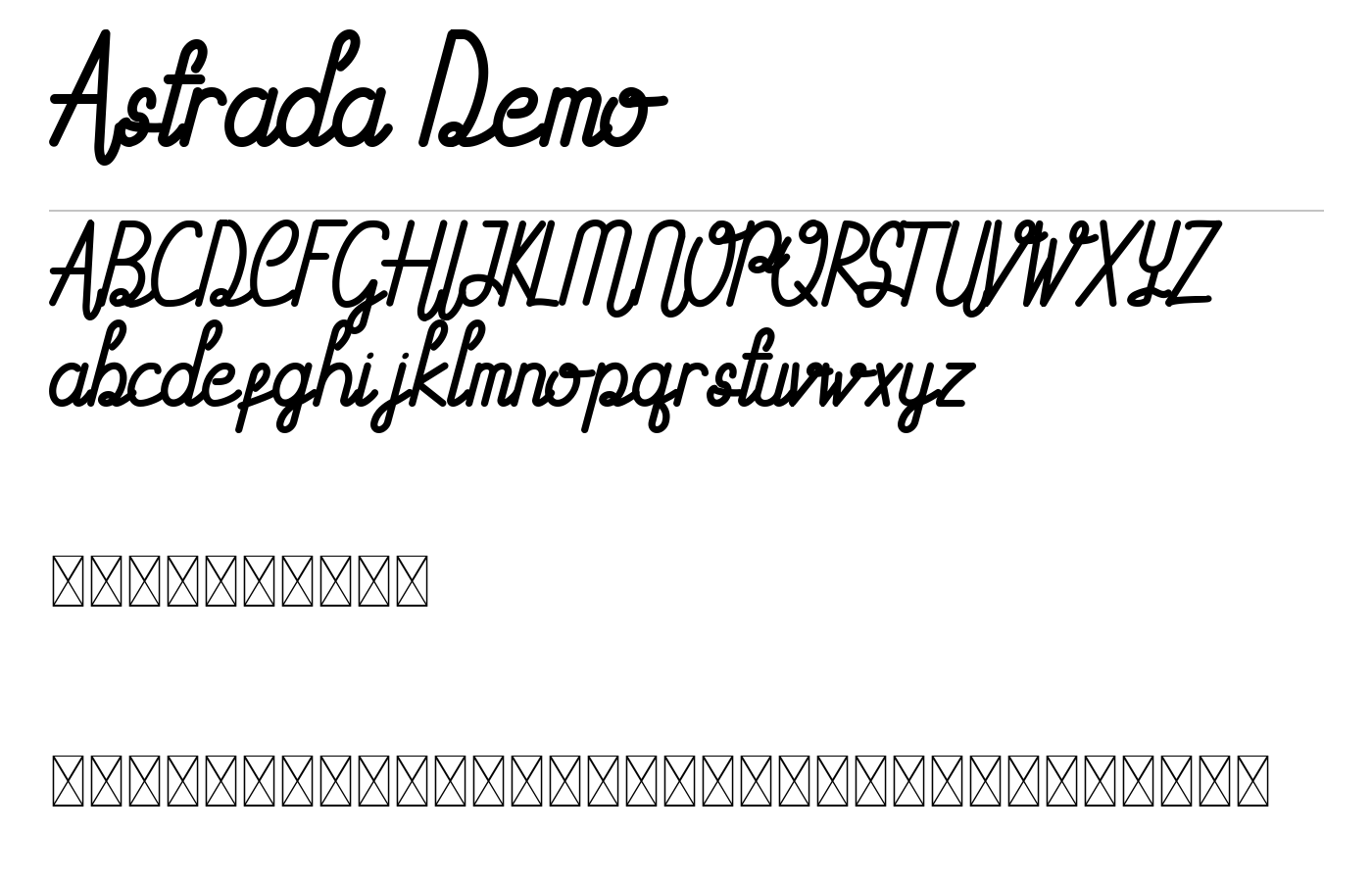
Astrada Demo is a playful and casual script font with a hand-drawn feel, featuring tall, narrow letterforms and smooth, rounded strokes that give it an approachable and friendly character. Its unique looping connections and slight slant make it ideal for creative branding, informal invitations, or lifestyle-focused designs where a personal, whimsical touch is desired. This font works particularly well in headlines and display uses where a light, charming personality is key.
Astrada Demo Font